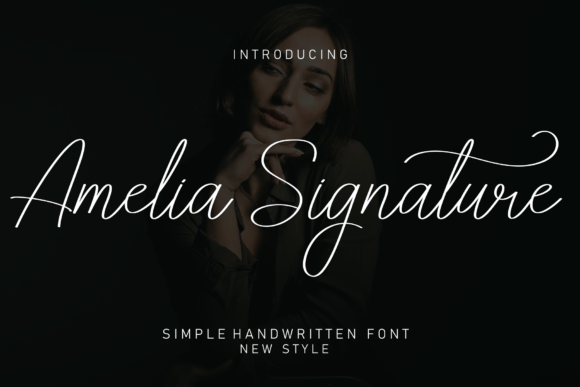
**Amelia Signature Font: A Touch of Whimsical Charm for Your Digital Creations**
Step into the world of enchanting typography with Amelia Signature Font, a captivating handwritten font that radiates warmth and personality. Carefully crafted by Strongkeng Old, this script font exudes a playful and inviting charm, making it the perfect choice for adding a personal touch to your digital projects.
Amelia Signature Font is more than just a font; it's an artistic expression that captures the essence of handwritten notes and calligraphy. Its whimsical strokes dance across the screen, evoking a sense of nostalgia and heartfelt connection. Whether you're designing wedding invitations, greeting cards, social media posts, or personalized logos, Amelia Signature Font will add a touch of magic to your creations.
**Unleash Your Creativity with Endless Possibilities**
With Amelia Signature Font at your fingertips, your creative potential knows no bounds. This versatile font seamlessly blends elegance and playfulness, making it suitable for a wide range of design projects. From heartfelt wedding invitations that convey the joy and love of your special day to whimsical greeting cards that spread cheer and happiness, Amelia Signature Font is your go-to choice for adding a unique touch to your designs.
Step into the world of calligraphy and create stunning digital artwork with Amelia Signature Font. Its graceful curves and flowing lines lend an air of sophistication to your projects, making them stand out from the crowd. Whether you're designing posters, flyers, or social media graphics, this font will elevate your designs to new heights of creativity.
**A Font that Speaks to the Heart**
Amelia Signature Font is not just a collection of letters and symbols; it's an expression of your individuality and style. With its charming handwritten appearance, Amelia Signature Font adds a touch of warmth and authenticity to your designs. It's a font that speaks to the heart, connecting with your audience on a personal level.
Create designs that resonate with your audience, designs that evoke emotions and leave a lasting impression. Amelia Signature Font is the key to unlocking your creative potential and crafting digital masterpieces that capture the essence of your brand or personal style.